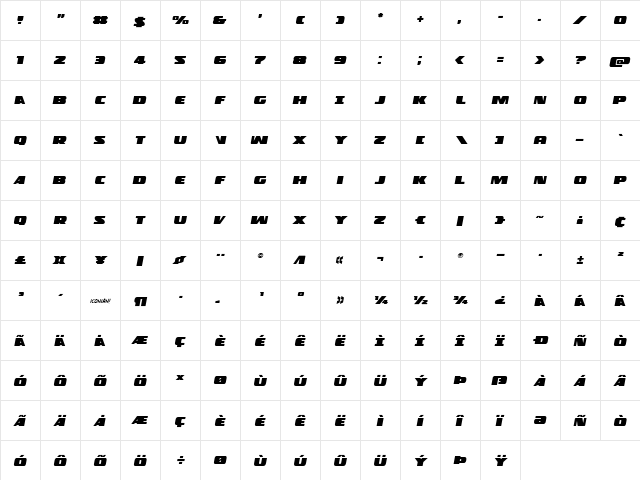
Police Cruiser Italic Italic
Design Context for Police Cruiser Italic Typeface
Police Cruiser Italic offers clean, dependable letterforms without strong stylistic allegiance, making it a practical choice for designers who need flexibility. Its italic angle brings a sense of urgency and motion to the letterforms.
Pro Tip: Use Police Cruiser Italic for emphasis, pull quotes, and subheadings where its slanted energy can add rhythm to the layout.